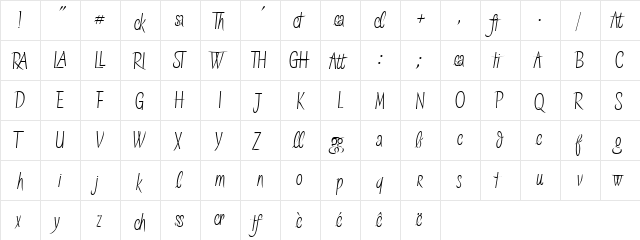
Tisdall Script Expert Regular
Design Context for Tisdall Script Expert Typeface
Tisdall Script Expert brings a calligraphic fluidity to the page — its connecting strokes and expressive curves give it an unmistakably human quality.
Font Pairing: Combine Tisdall Script Expert with a simple geometric sans for maximum contrast — the tension between flowing curves and clean structure is a classic typographic pairing.
Pro Tip: Use Tisdall Script Expert for short runs of text — names, titles, or taglines. Extended body copy in script faces tires the eye quickly.